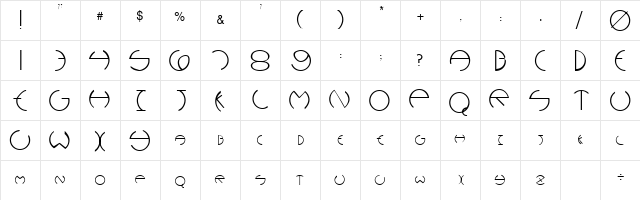
Rounders (Plain):001.001 (Plain):001.001
Design Context for Rounders (Plain):001.001 Typeface
Rounders (Plain):001.001 softens its letterforms with rounded terminals, giving it an approachable, friendly quality that works well in consumer-facing and digital contexts.
A natural fit for tech startups, health and wellness brands, children's products, and friendly consumer apps.
Font Pairing: Pairs well with a rounded or humanist sans for body copy, maintaining the friendly tone without relying on Rounders (Plain):001.001 to carry extended reading.
Pro Tip: Pair Rounders (Plain):001.001 with a geometric sans for a balanced system — the rounded softness works as a warm counterpoint to harder-edged companions.